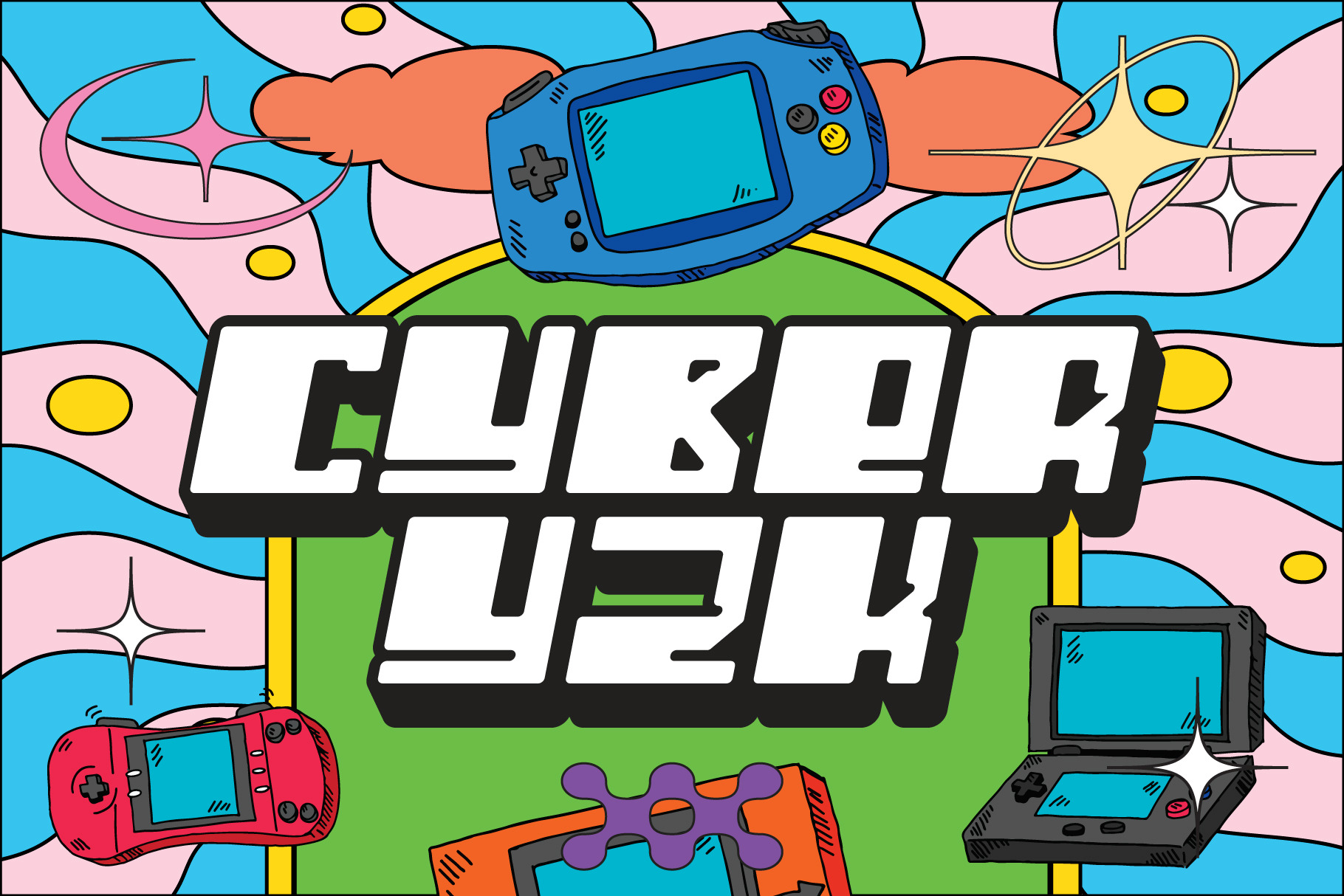
CYBER Y2K Font-Aesthetic Colour Font
CYBER Y2K Aesthetic Colour Font Pack
Made for text display purposes, CYBER Y2K brings a sharp and strong impression to your design. With a bold style, suitable as the main text / header text on a poster , music artworks , website design, t-shirt print, book cover etc